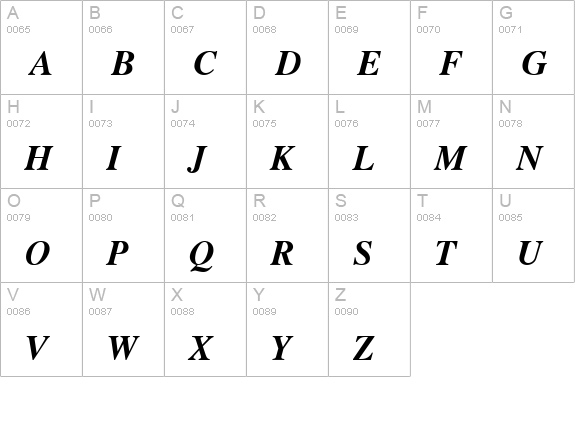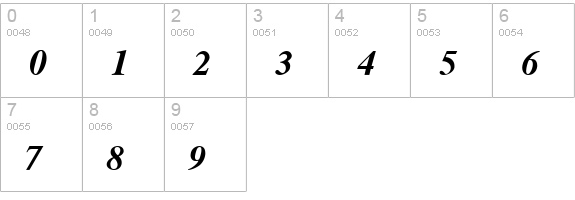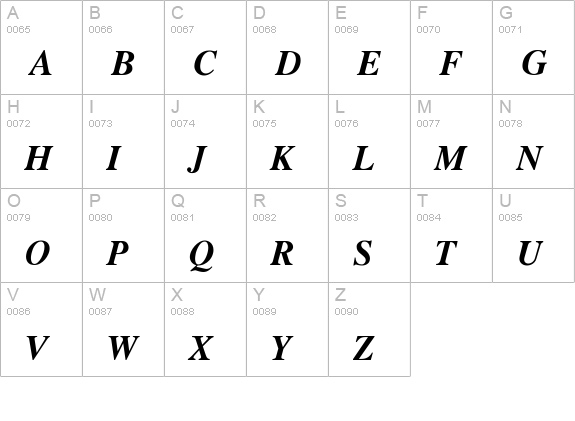
Greco Demi SSi Demi Bold Italic is a sub-bold, structured, italic variant in the Greco typeface family \xE2\x80\x94 well suited to sub-headlines and emphasised passages.
Greco Demi SSi Demi Bold Italic is a bold and stylish font that exudes confidence and sophistication. Its unique combination of boldness and elegance makes it a perfect choice for headlines, titles, and branding materials. The italicized slant adds a touch of flair and drama to any design project, making it stand out from the crowd. And the best part? Greco Demi SSi Demi Bold Italic is available for free download at FontsMarket.com. This means you can easily access this stunning font without any cost, making it a valuable addition to your font collection. Don't miss out on the opportunity to enhance your designs with this beautiful and versatile typeface - download Greco Demi SSi Demi Bold Italic today!